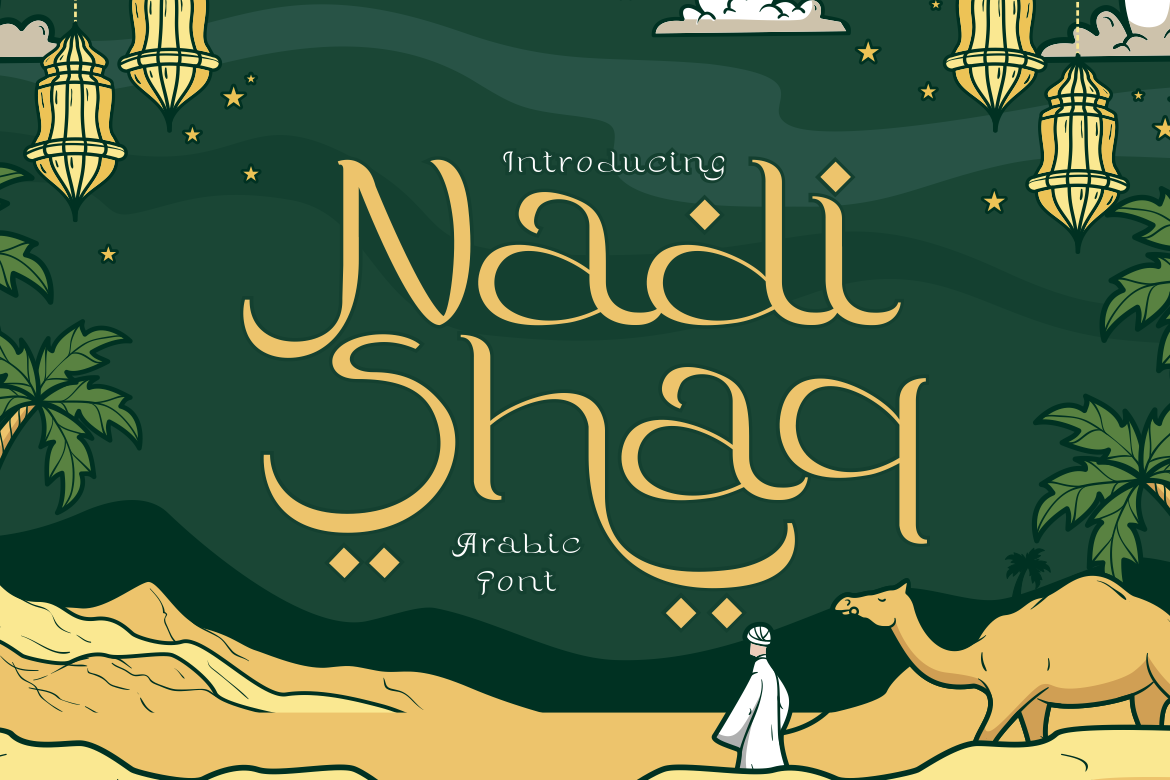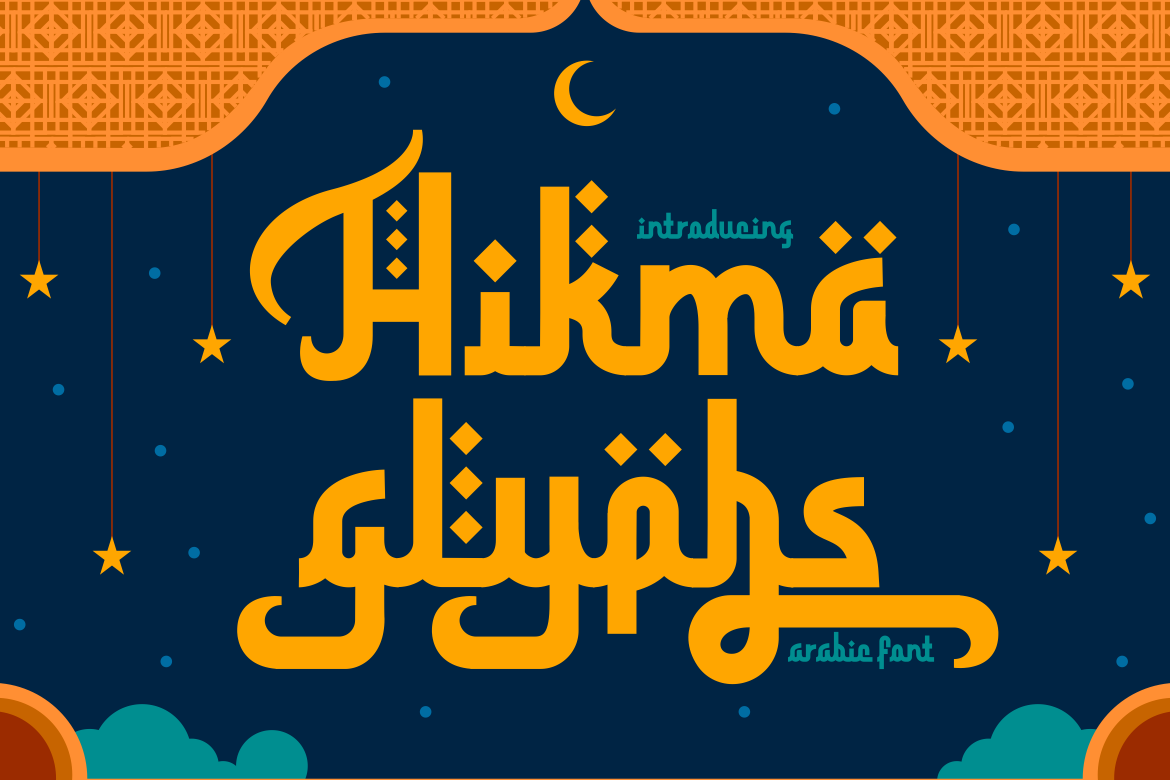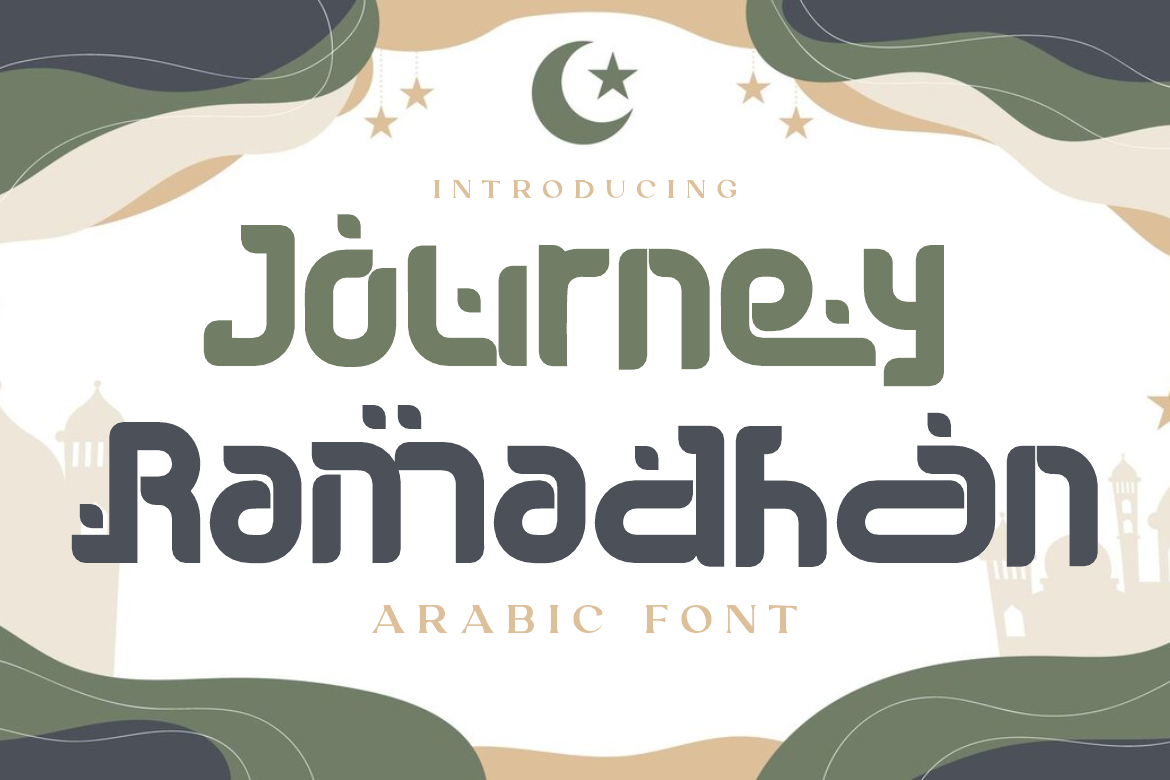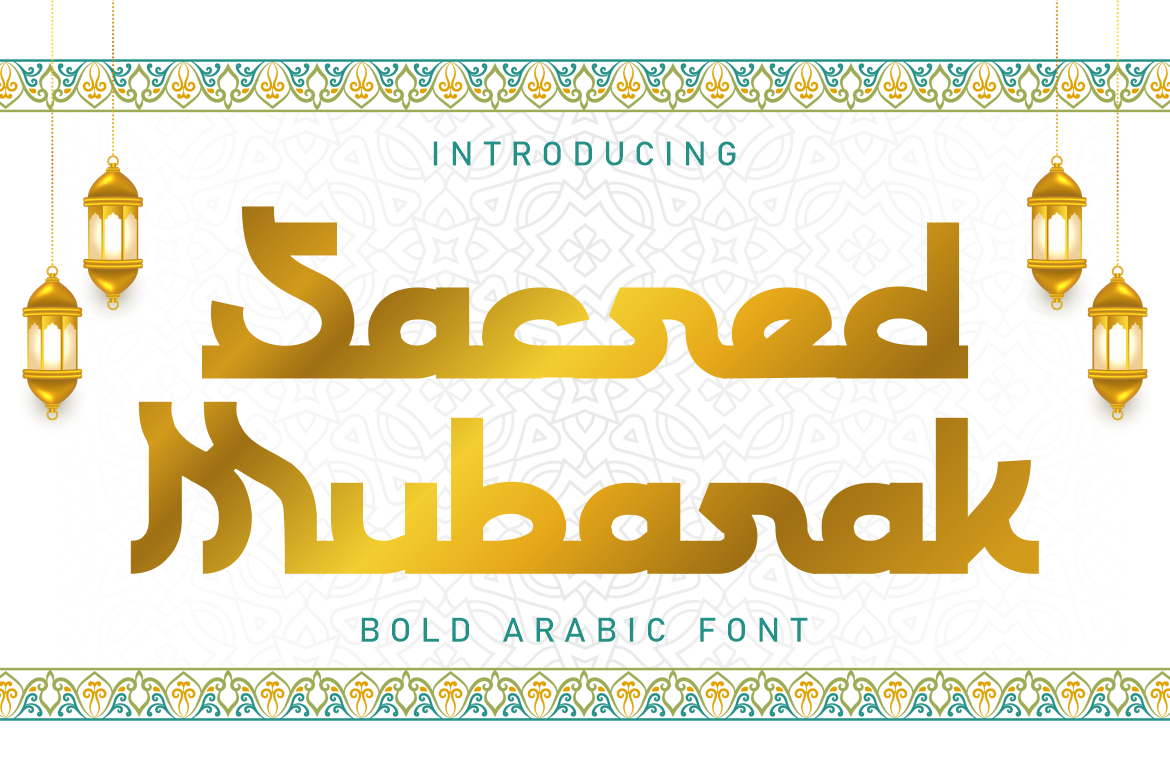
Best Fonts to Bring Arabic Flair into Your Visual Project
Arabic Style Fonts: 10 Beautiful Typefaces Inspired by Middle Eastern Culture
Arabic calligraphy is one of the world’s most visually captivating art forms. Its graceful curves and symbolic flow have influenced countless areas of design, from religious manuscripts to modern branding. In the digital age, Arabic style fonts allow designers to bring this rich cultural legacy into everything from product packaging to festival posters.
In this article, we’ll explore 10 of the best Arabic style fonts from PutraCetol.com, each offering unique aesthetics, personality, and cultural depth. Whether you’re designing for Ramadan, Islamic branding, or Middle Eastern-themed projects, these fonts are your ideal companions.
1. Huraira – Arabic Style Font
Huraira brings a beautifully refined interpretation of Arabic-inspired typography. Designed with a modern yet respectful nod to traditional script, it balances sharp geometry with soft flow perfect for branding, invitations, and fashion labels rooted in Middle Eastern culture.
Use for: Event banners, Arabic weddings, luxury branding
2. Furqan – Arabic Inspired Font
Furqan combines calligraphic elegance with a structured typeface, creating a font that feels both spiritual and bold. The weight of the letters gives it strong visual presence, ideal for religious products, book titles, or Islamic school branding.
Use for: Quran covers, religious brochures, posters
3. Nashir Nectar – Islamic Display Font
Modern and decorative, Nashir Nectar is a display font perfect for festive seasons like Eid or Ramadhan. With stylized glyphs and ornamental finishes, it captures the energy and vibrance of contemporary Islamic celebrations.
Use for: Product labels, packaging, flyers for halal food or Ramadan events
4. Turban Genie – Arabic Display Font
Turban Genie offers a quirky, storytelling vibe with a Middle Eastern aesthetic. The curved, dynamic strokes are perfect for businesses that want to inject personality into their branding think food trucks, bazaars, or handmade product shops.
Use for: Logos, storytelling posters, Arabic cartoon branding
5. Nadishaq – Arabic Themed Font
Nadishaq is a versatile and readable Arabic display font built on the foundations of traditional letterforms. It stands out through its elegant composition and visual symmetry, great for multicultural posters and editorial layouts.
Use for: University journals, NGO materials, Muslim heritage projects
6. Hikma Glyphs – Decorative Arabic Style Font
A blend of modern design and Arabic decorative shapes, Hikma Glyphs is both playful and majestic. This font is rich in personality and ideal for designers who want something bold yet culturally nuanced.
Use for: Islamic children’s books, educational materials, Ramadhan activities
7. Majidi Mirage – Arabic Display Font
Majidi Mirage blends tradition and sophistication into a beautiful Arabic style font. With wide letter spacing and formal structure, it evokes regal elegance and suitable for high-end branding or editorial titles.
Use for: Premium packaging, Islamic beauty brands, editorial magazine layouts
8. Hikaya Mirage – Arabic Display Font
Hikaya Mirage carries a narrative flow, perfect for titles, storytelling formats, or event branding. “Hikaya” means “story,” and this font speaks volumes visually. With stylized curves and organic character, it creates poetic contrast on screen or in print.
Use for: Book covers, cultural events, film posters
9. Journey Ramadhan – Festive Arabic Font
A seasonal favorite, Journey Ramadhan is festive, decorative, and steeped in Islamic art tradition. Designed with dot patterns and expressive accents, it captures the warmth and spirituality of holy months.
Use for: Ramadan campaigns, donation drives, greeting cards
10. Sacred Mubarak – Bold Arabic Font
Sacred Mubarak is bold, geometric, and clearly inspired by kufic style calligraphy. It commands attention while remaining legible, making it a go-to font for impactful visual communication with spiritual depth.
Use for: Event signage, large format displays, religious festival branding
💡 Why Use Arabic Style Fonts?
• Cultural authenticity: Fonts rooted in Arabic calligraphy show respect to Islamic and Middle Eastern traditions.
• Visual elegance: The curves, symmetry, and rhythm of Arabic forms add poetic movement to any layout.
• Diverse application: From religious festivals to modern halal branding, these fonts work across industries and design goals.
• Emotional resonance: Arabic fonts often carry warmth, spirituality, and a sense of identity.
Let your next creative project speak with authenticity and one beautiful letter at a time.